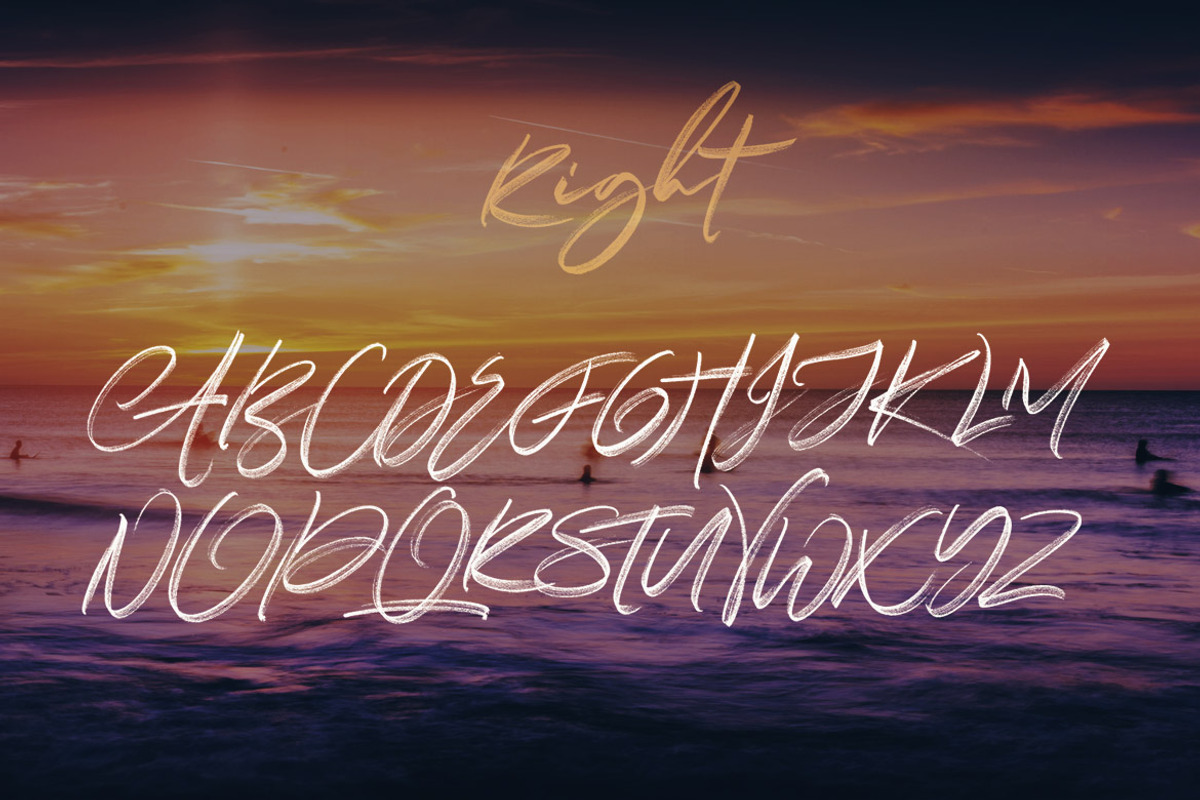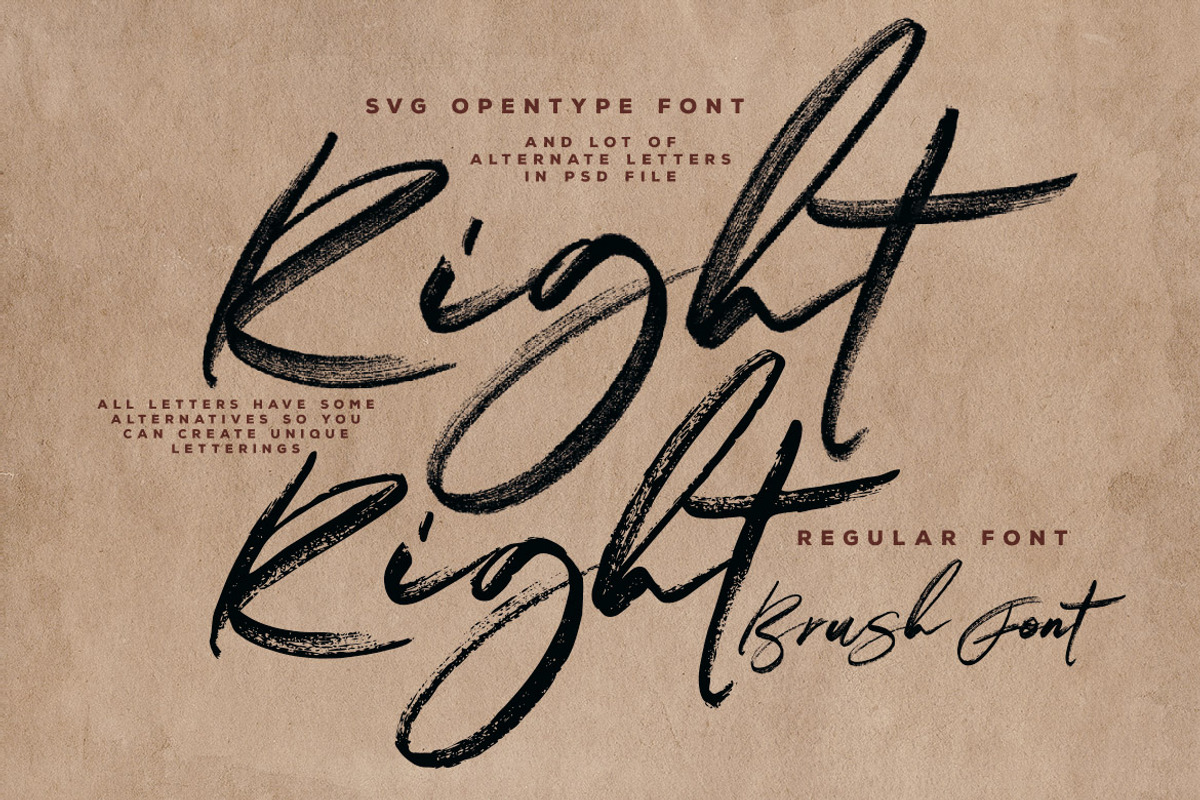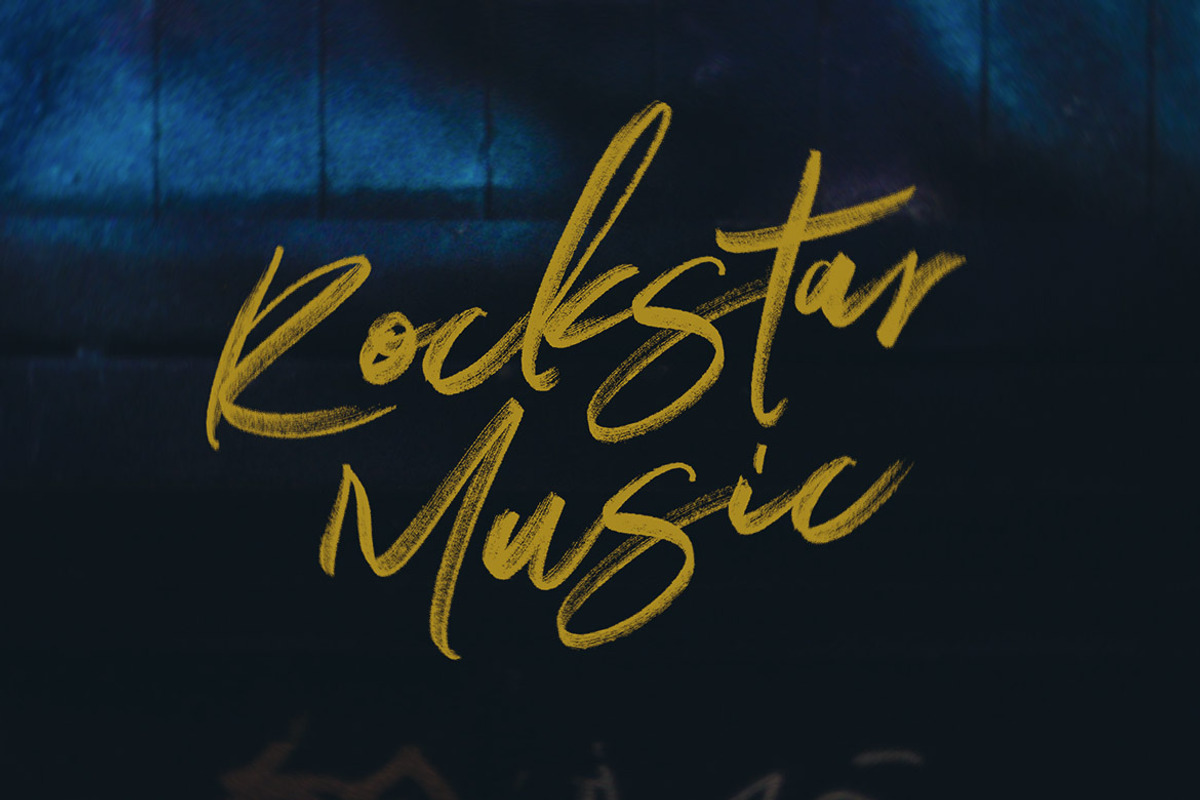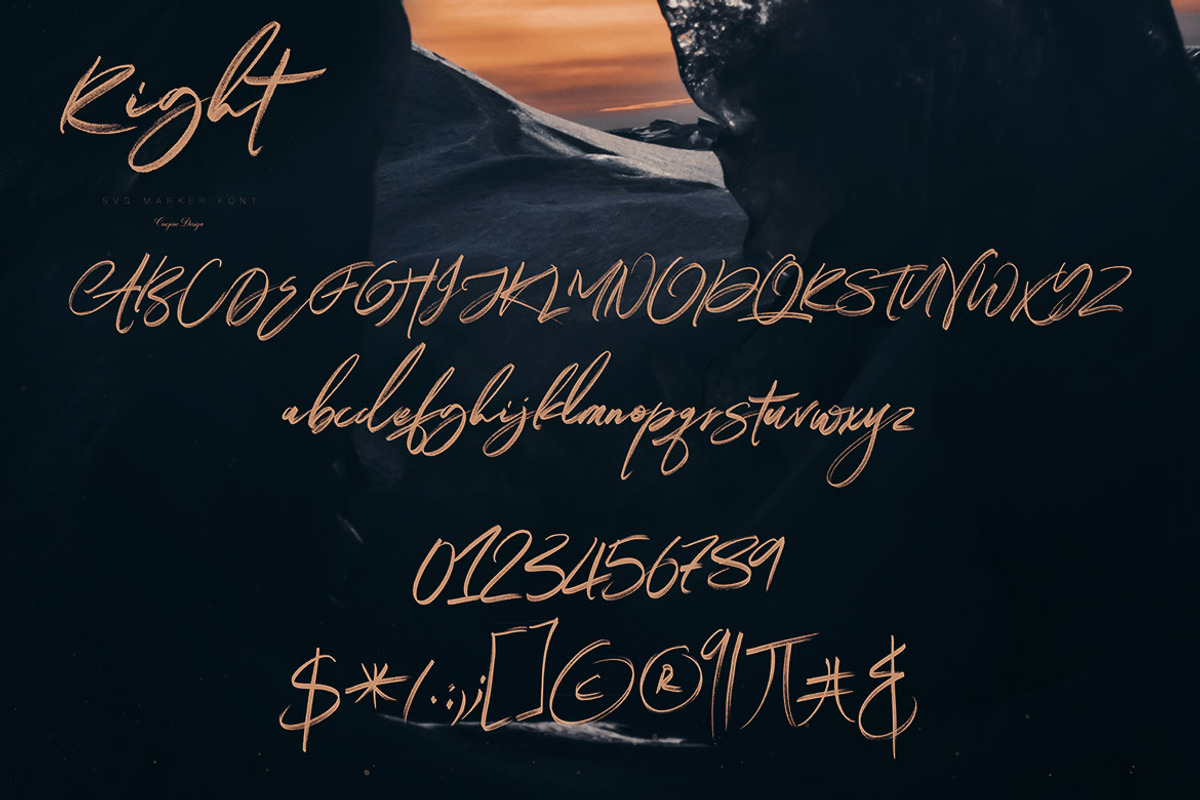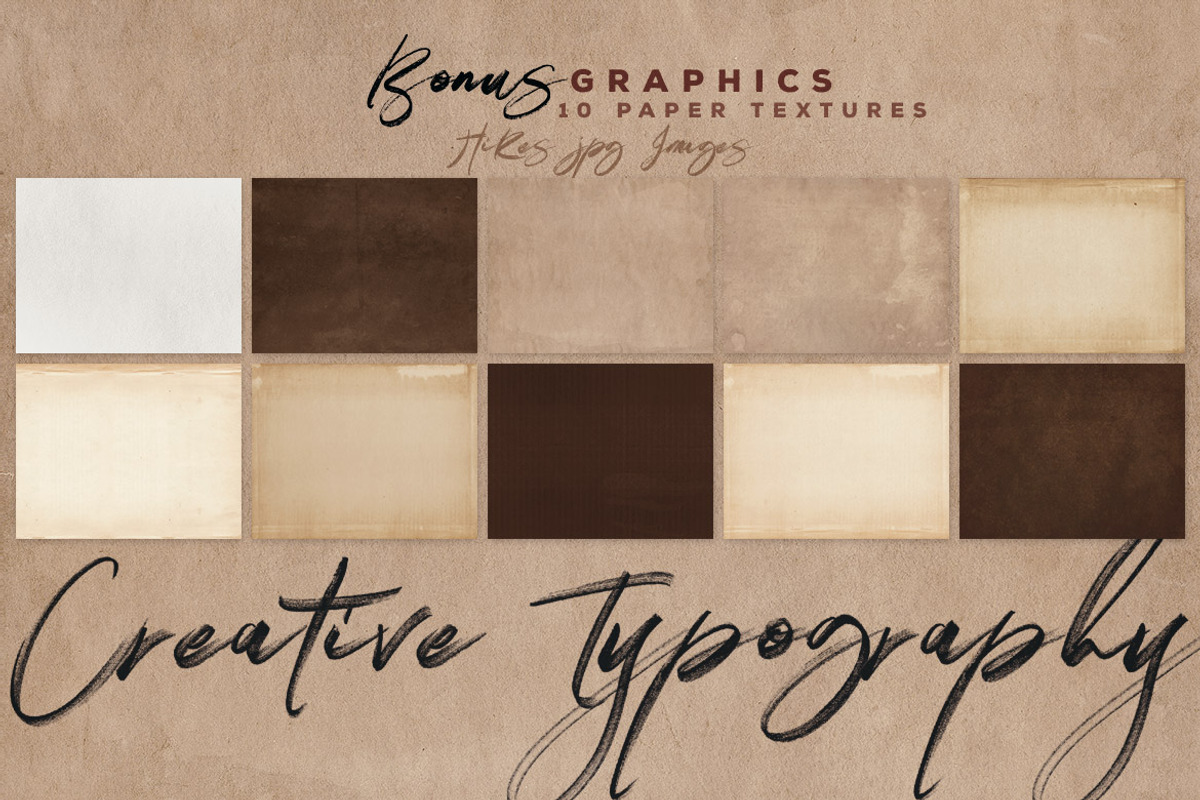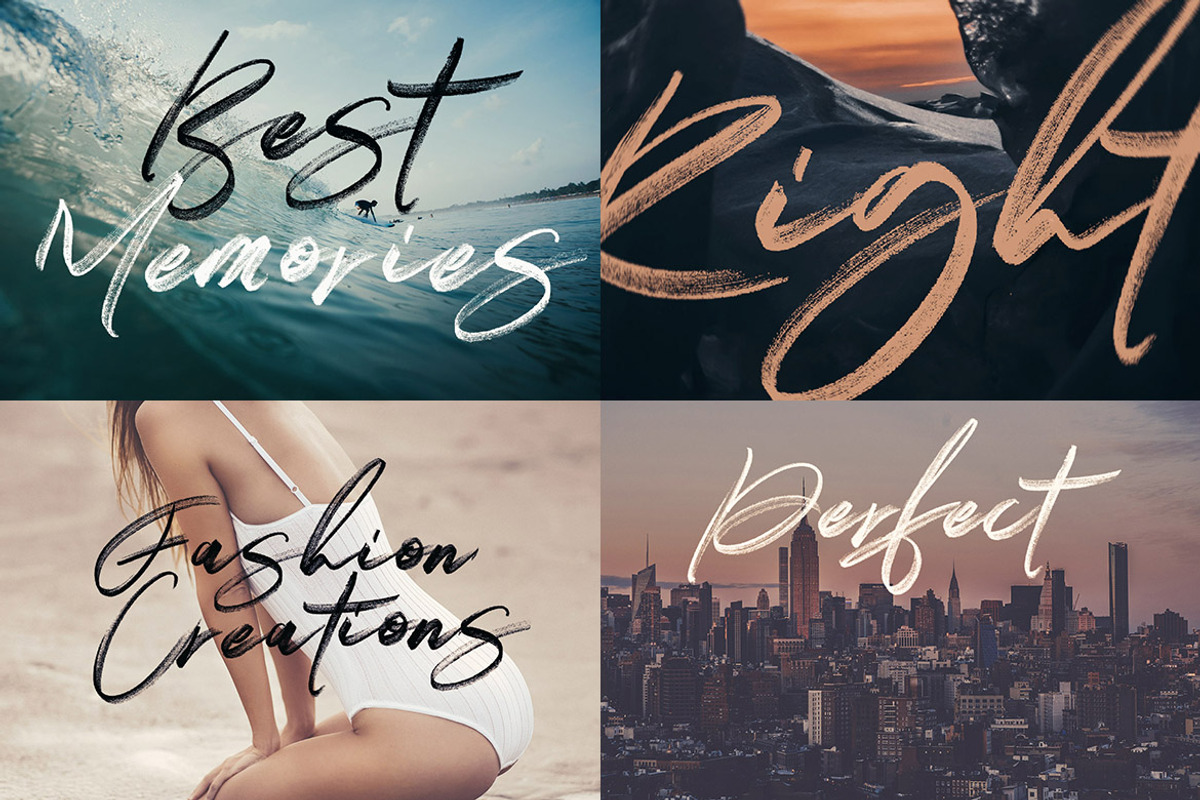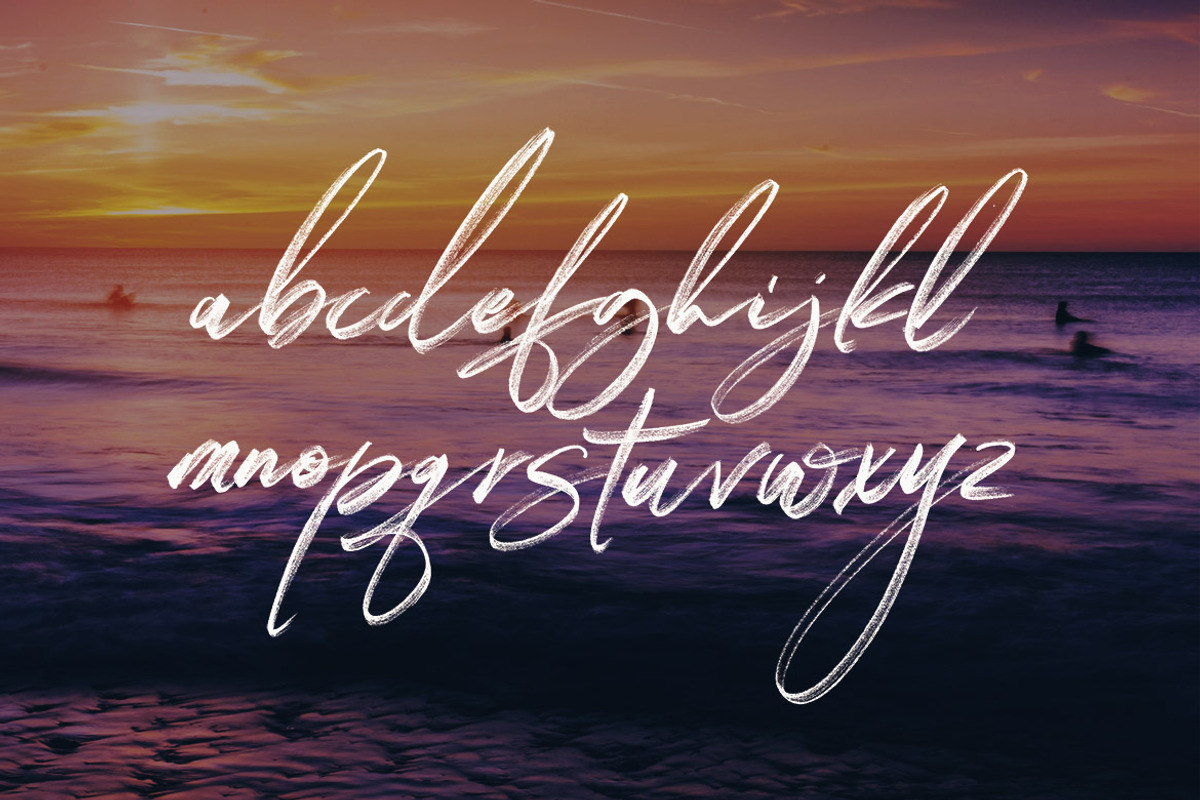
Right Brush & SVG Font
Brush or grunge style script display font for your new projects. Great for grunge or artistic projects!
regular OTF fonts - main brush font + 2 clean sans serif fonts great as a font combination for background
layered PSD template with all brush characters & lot of alternative letters -you can create your unique lettering because you'll find here lot of alternatives for A, B, C...a, b, c...
Why Right Brush & SVG Font is worth a look
Right Brush & SVG Font by Cruzine fits naturally into Branding, posters, packaging, typography.